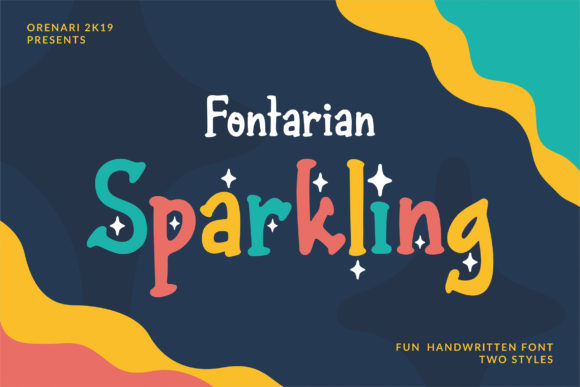
Fontarian Sparkling: A Fun Handwriting Font with Two Styles
Every designer knows the search for a typeface that feels both personal and polished can be challenging. Fontarian Sparkling enters the scene as a fun handwriting font with two distinct styles, offering a solution that brings a unique and special touch to a wide range of creative projects. It’s more than just a script font; it’s a tool for adding personality, warmth, and a handcrafted feel that standard fonts often lack.
This creative font is designed to capture the organic, flowing nature of authentic handwriting while maintaining the clarity needed for modern design. Its dual-style nature provides valuable flexibility, allowing you to switch between looks depending on the project's mood. Whether you need a playful script for a social media graphic or a more refined handwritten font for a logo, Fontarian Sparkling adapts to your vision.
Where Can You Use This Premium Font?
The versatility of a well-crafted typeface like this one makes it suitable for numerous applications. Its approachable yet stylish character makes it a strong candidate for projects that aim to connect on a personal level. Consider using it for:
- Brand Identity & Logo Design: Inject warmth and personality into a brand logo, making it memorable and approachable. It works beautifully for boutique businesses, lifestyle brands, and creative services.
- Packaging Design: Stand out on the shelf with handwritten labels that suggest authenticity and care, perfect for artisanal foods, cosmetics, or handmade goods.
- Editorial & Web Design: Use it for pull quotes, subheadings, or special feature titles in magazines, blogs, or website hero sections to break the monotony of standard serif or sans serif fonts.
- Social Media Graphics & Poster Design: Create eye-catching Instagram stories, Pinterest pins, or event posters that feel personal and engaging, helping to boost interaction.
- Invitations & Merchandise: From wedding invitations to custom t-shirt designs, it adds a bespoke, celebratory quality that generic display fonts cannot match.
Tips for Choosing and Using Fontarian Sparkling
Investing in a quality typeface is an investment in your project's visual consistency and professional presentation. The right font choice, like Fontarian Sparkling, can elevate a design from ordinary to memorable, strengthening brand recognition and delivering a more polished final product. It’s a design asset that empowers you to communicate with more character and creativity.